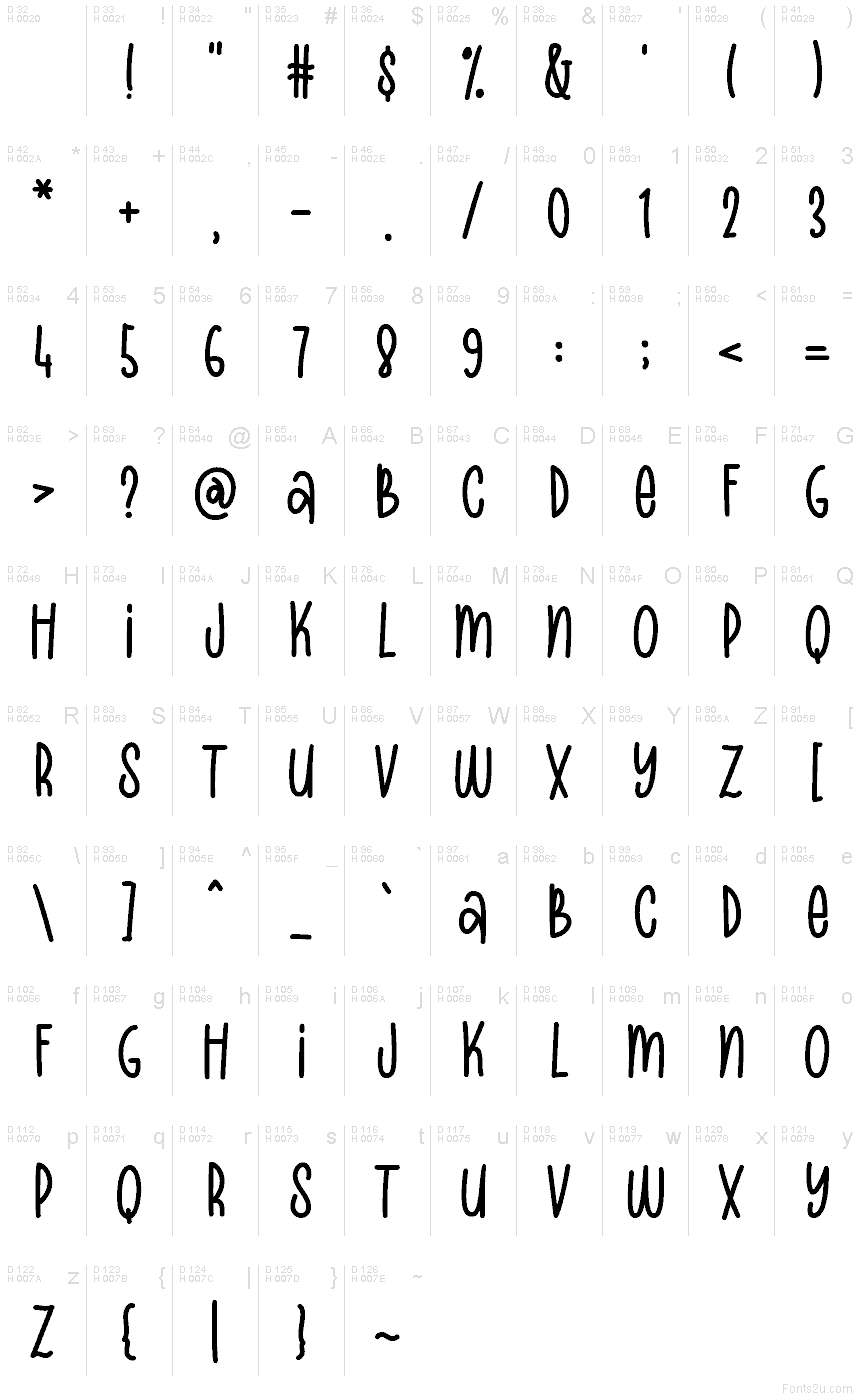
Tropic Jungle
Tropic Jungle font by Dimas Prasetyo of Dm Letter Studio is a free handwritten font with organic shapes. Condensed and gently rounded, it gives off a relaxed yet elegant vibe making it perfect for those looking for a casual typographic solution. The quirky script typeface enjoys unconventional letter edges and realistic handwriting imperfection that make lettering designs visually stand out.
The range of possible applications covers any heading or text related project. Tropic Jungle shines in logo design, websites, blogs, social media photography captions etc. It can be suitable for flyers, posters, magazines or book covers making apparel or accessory brands also interesting choices.